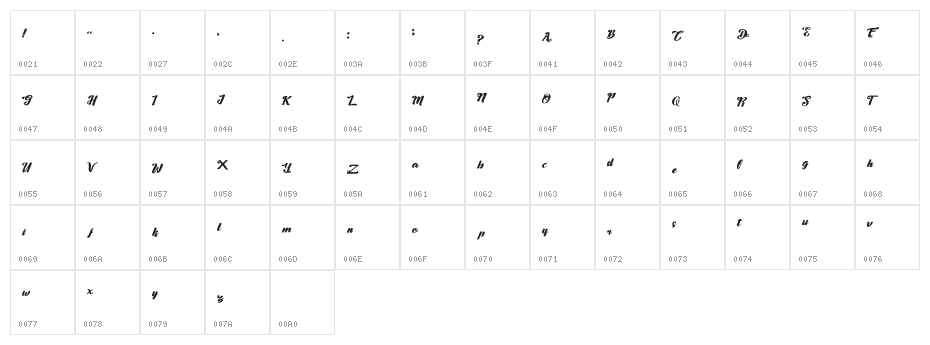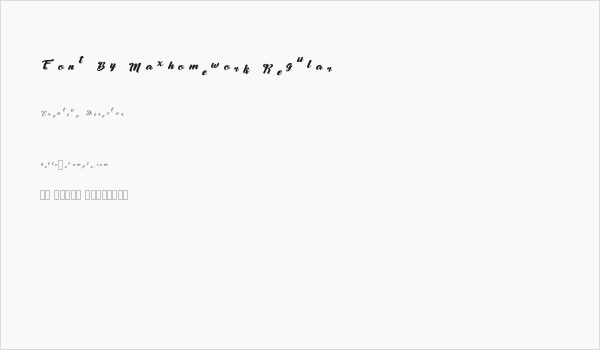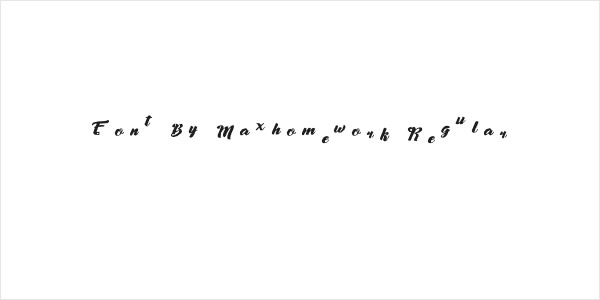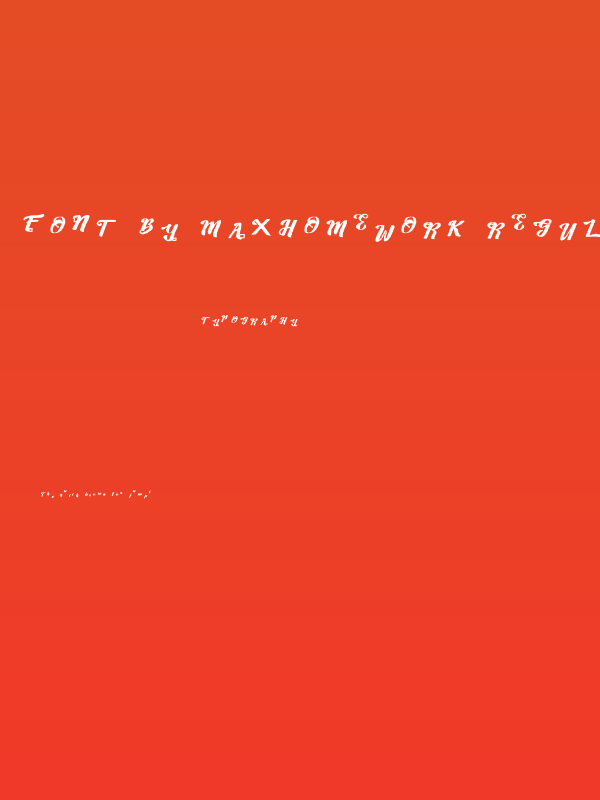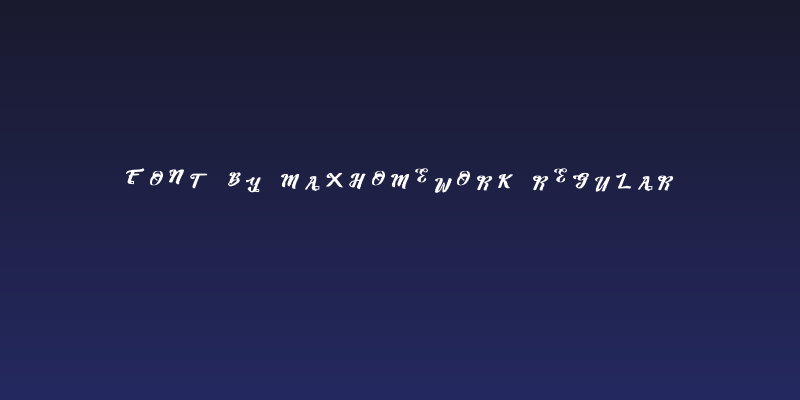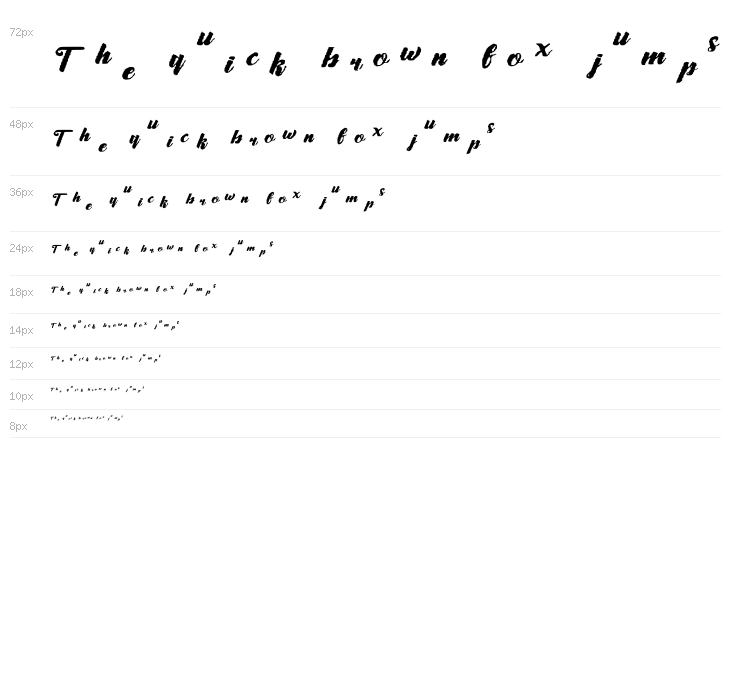
Font By Maxhomework Regular Font
Font By Maxhomework Regular Description
This font exhibits a decorative and elegant style with a handwritten appearance. The uppercase letters have a flowing, cursive quality, while the lowercase letters maintain a consistent, smooth stroke. The characters are slightly slanted, adding a dynamic and lively feel. The font features unique embellishments on certain letters, such as loops and swirls, enhancing its ornamental nature. The numbers and special characters are designed to match the overall aesthetic, with a playful yet sophisticated look. This font is well-suited for creative and artistic projects that require a touch of elegance and flair.
| Proposed Projects | Ideal for wedding invitations, greeting cards, branding, and artistic projects. |